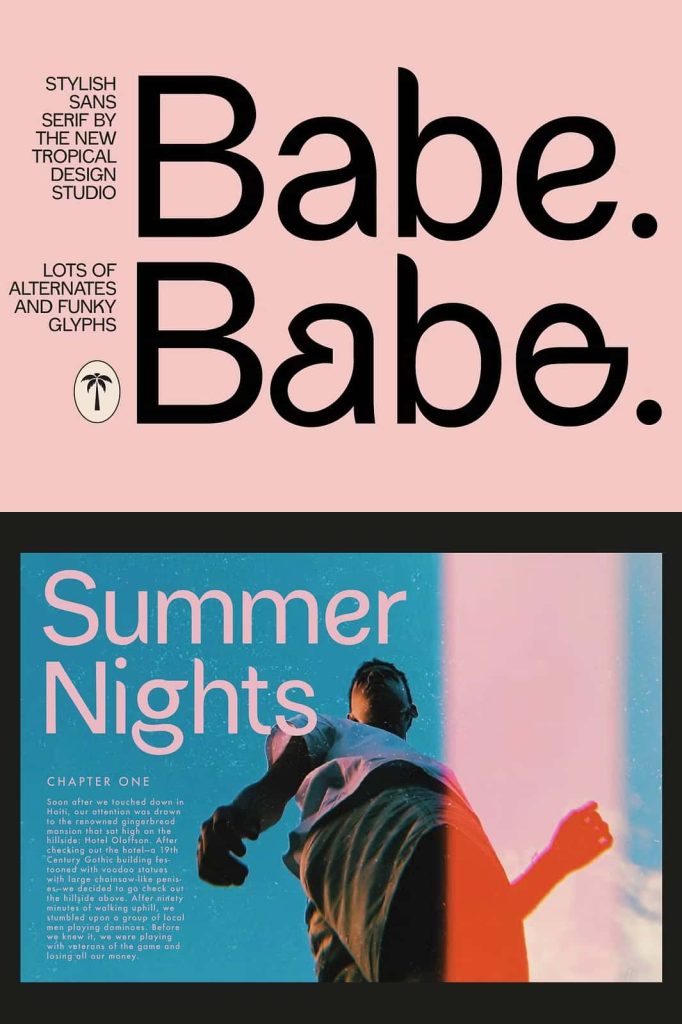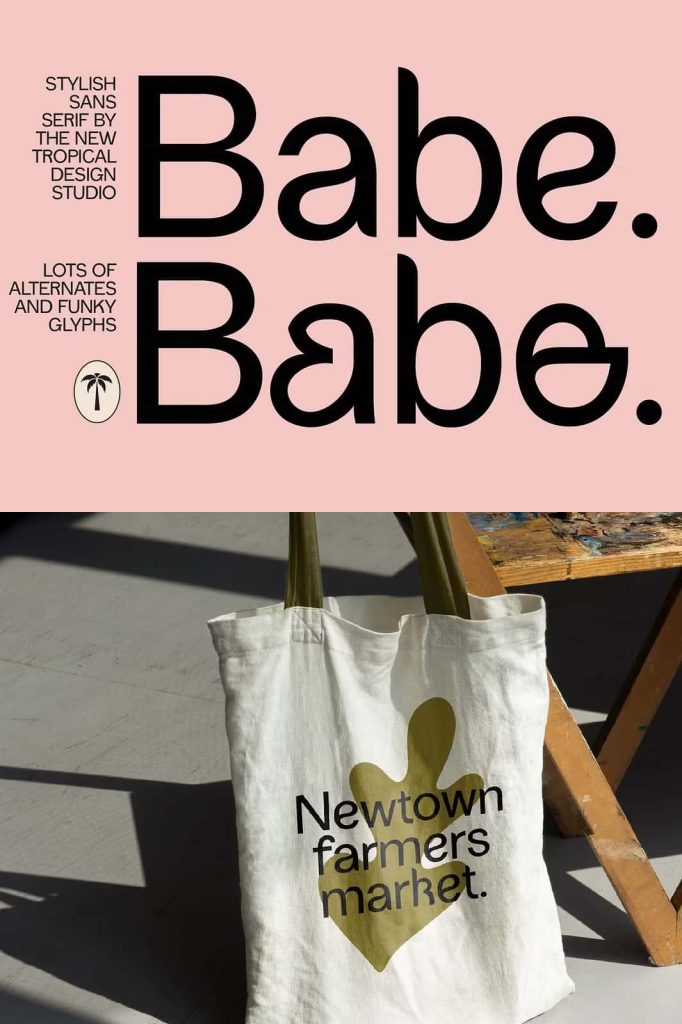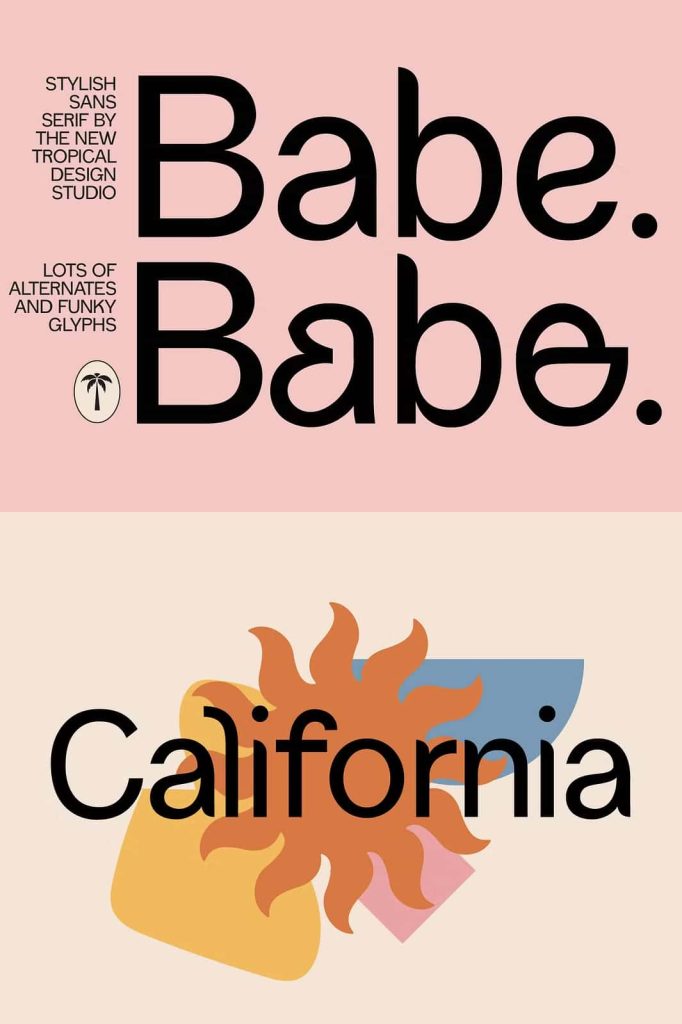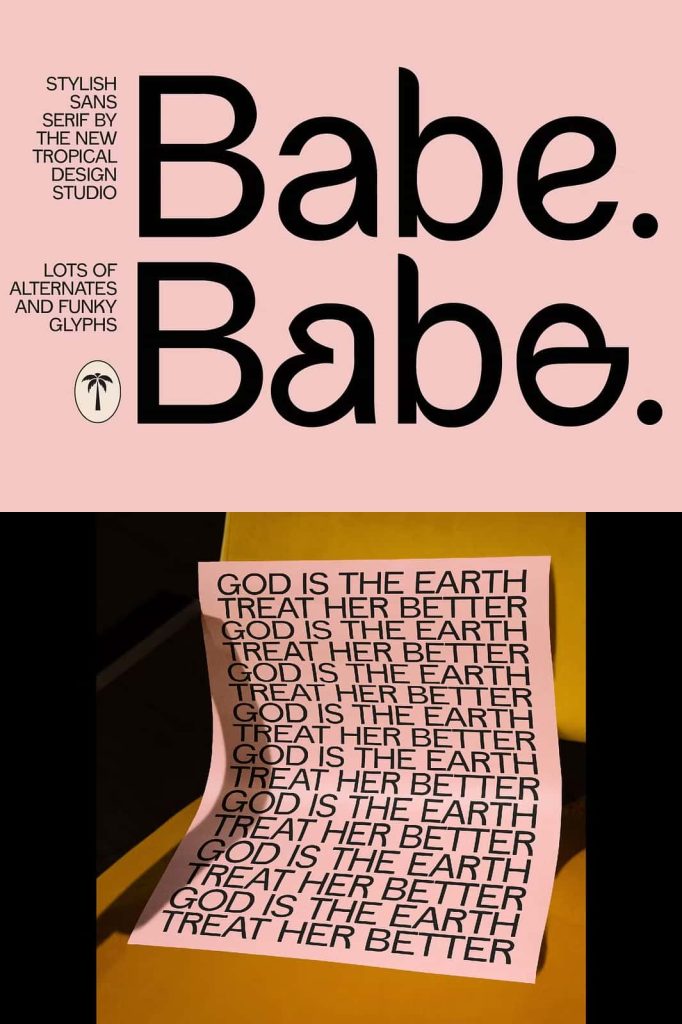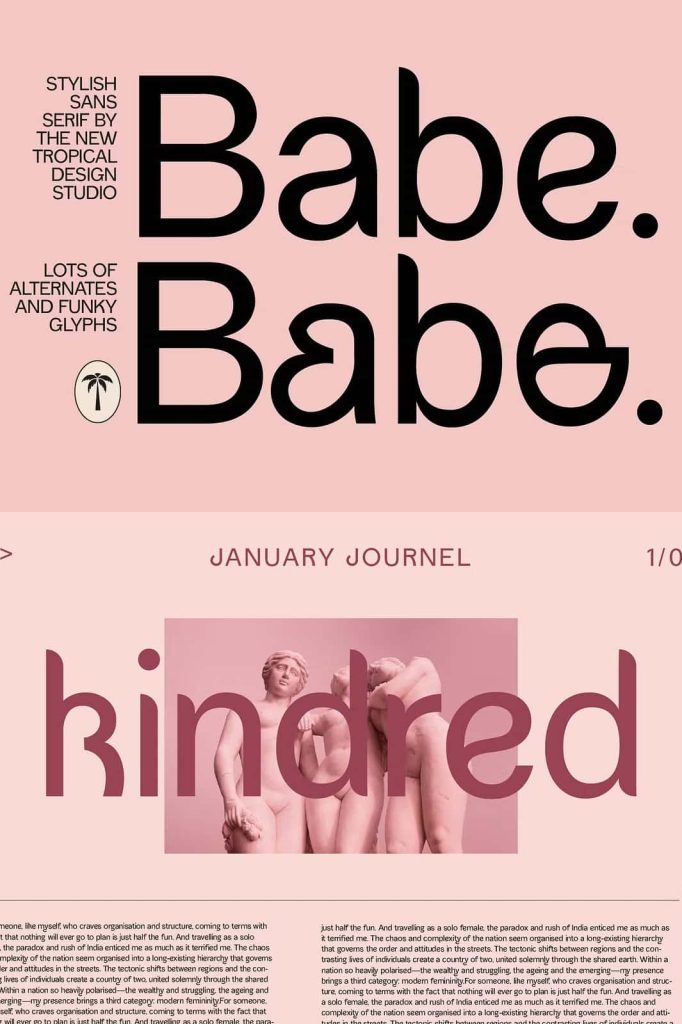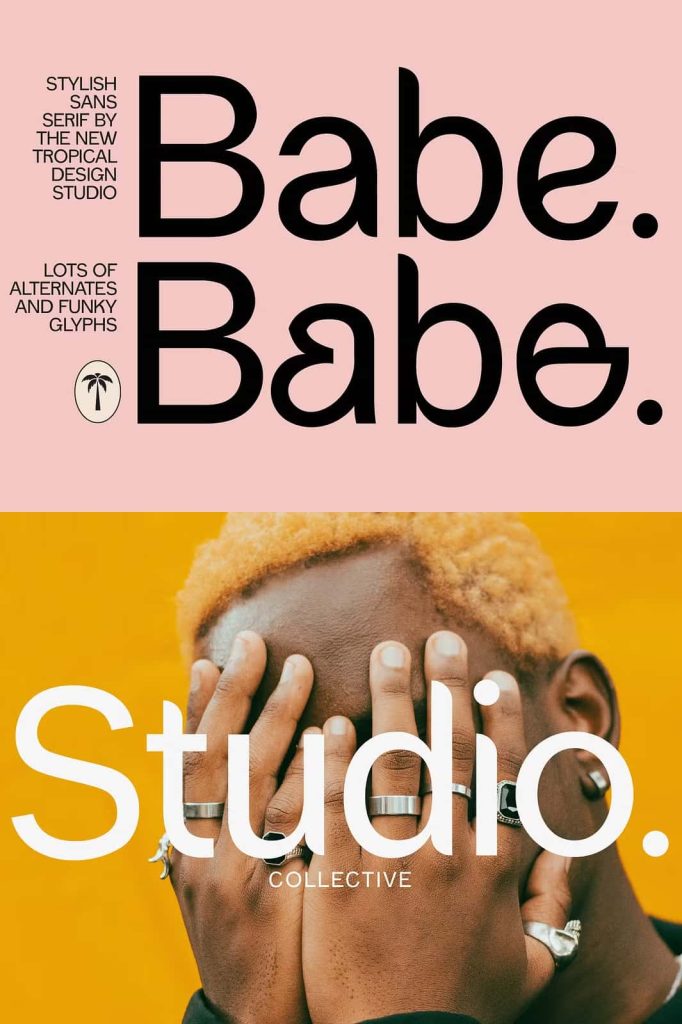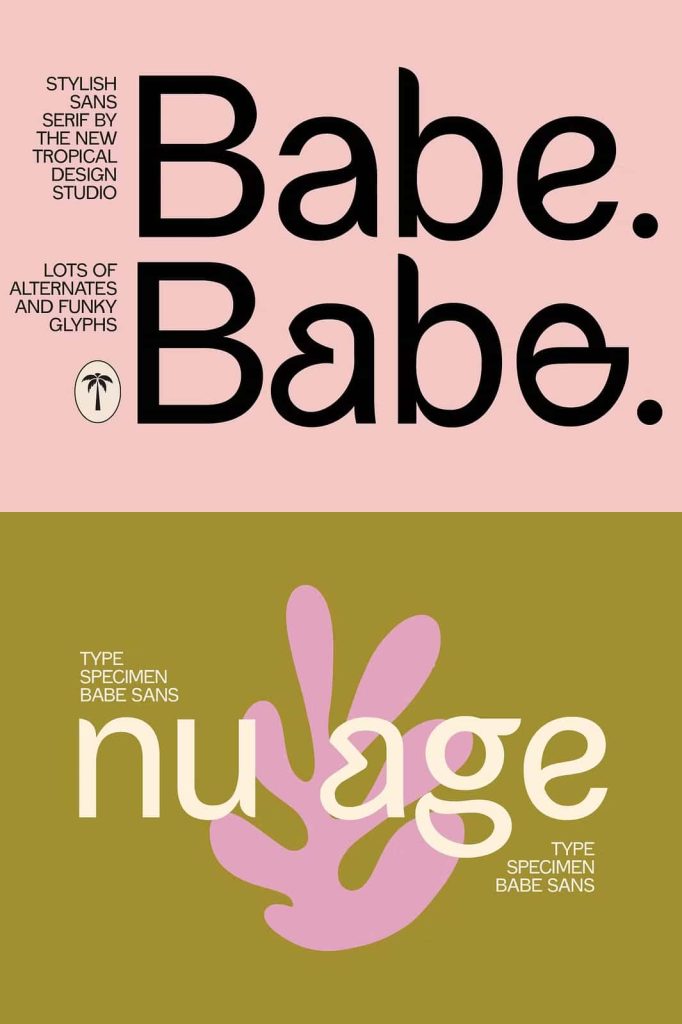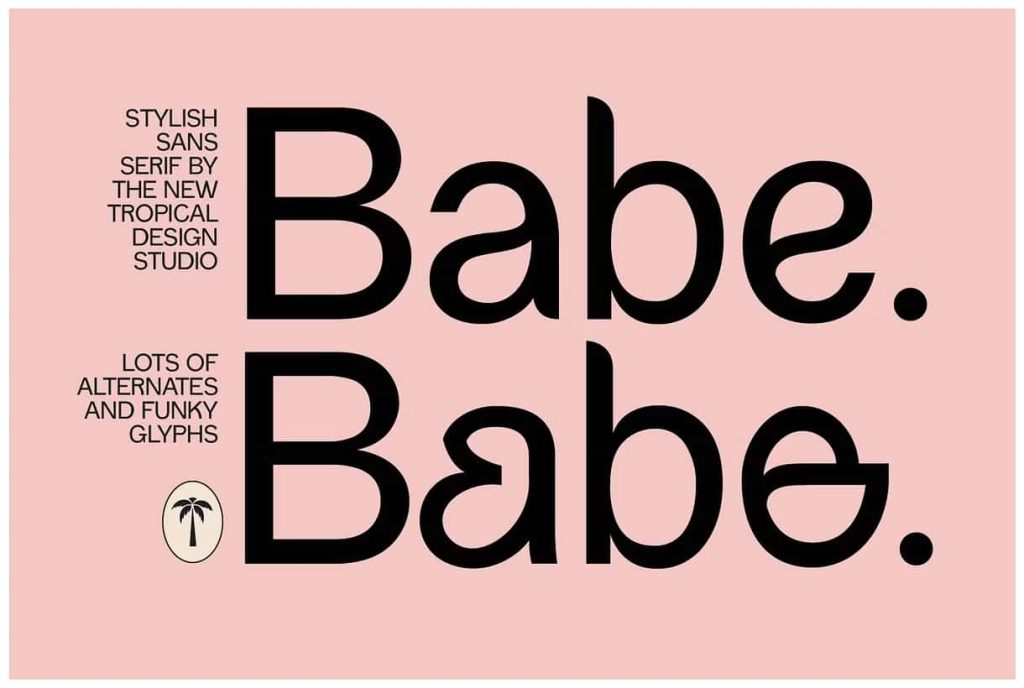
Babe – Sans Serif FontleastedApril 12, 2025Fonts She’s cute, she’s bold, she has curves in all the right places. It’s Babe Sans. She’s clean, legible Download